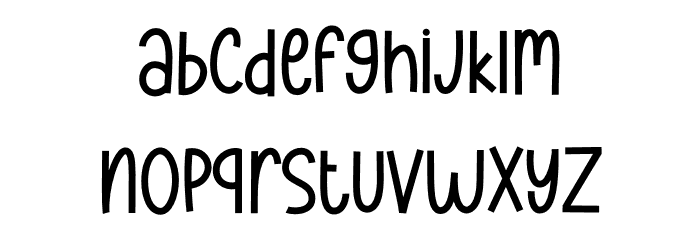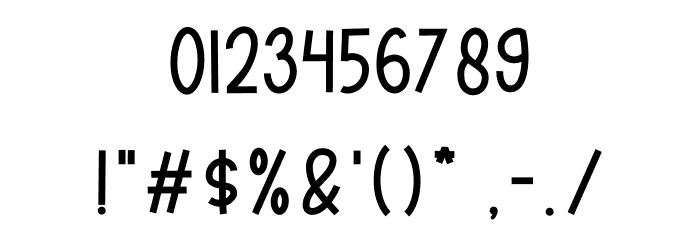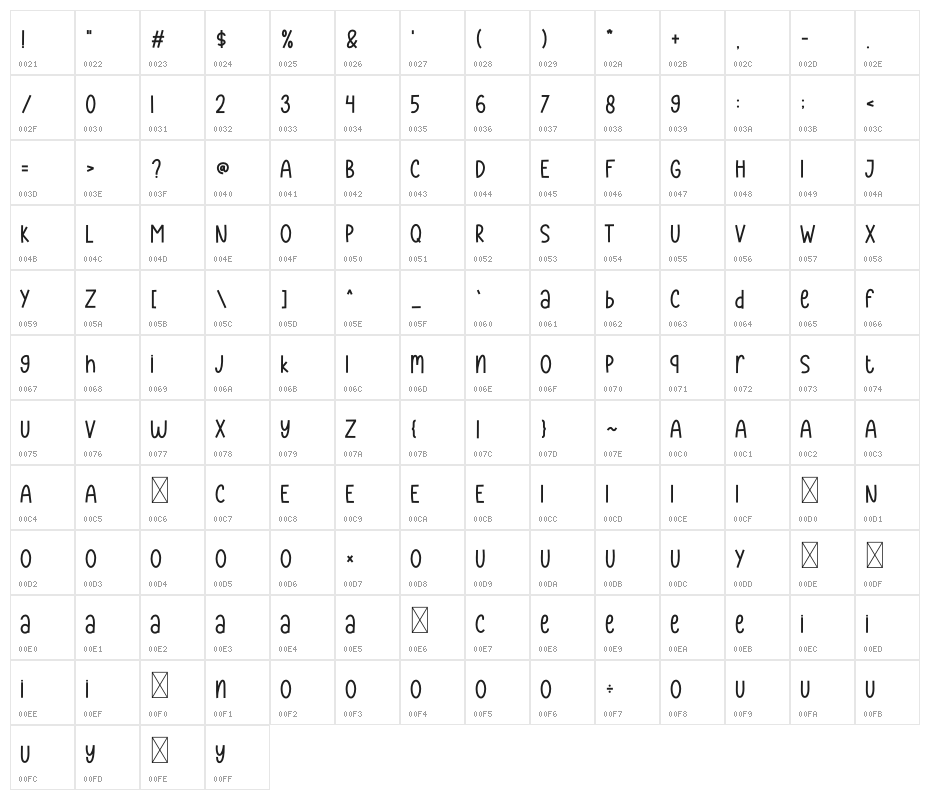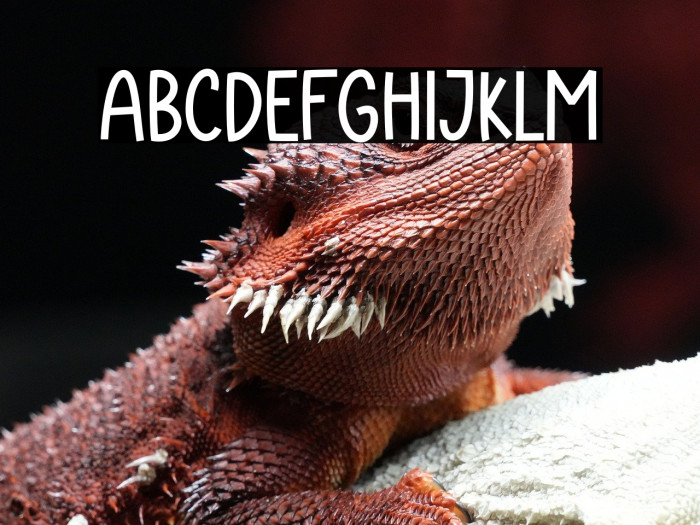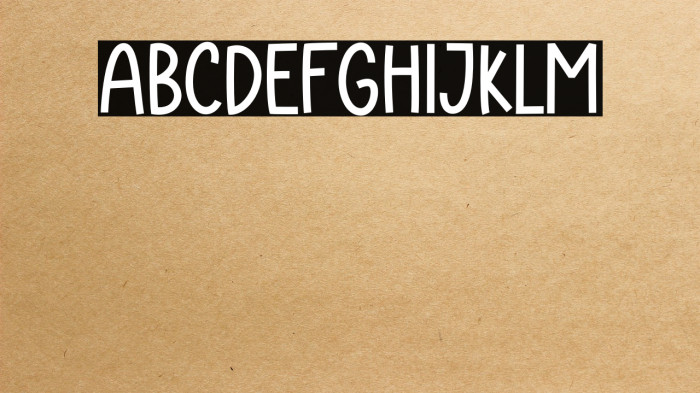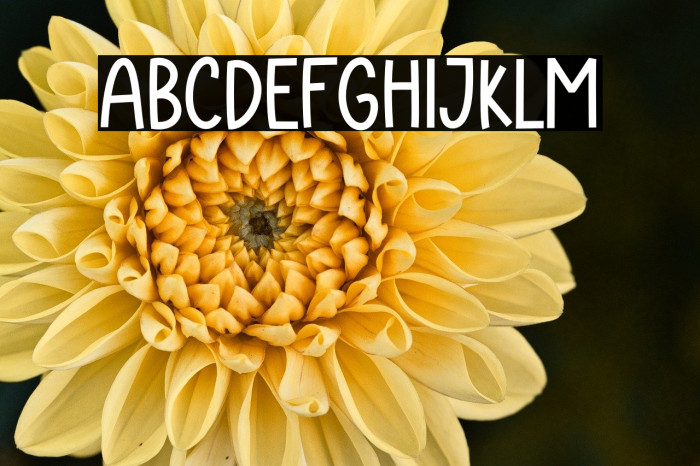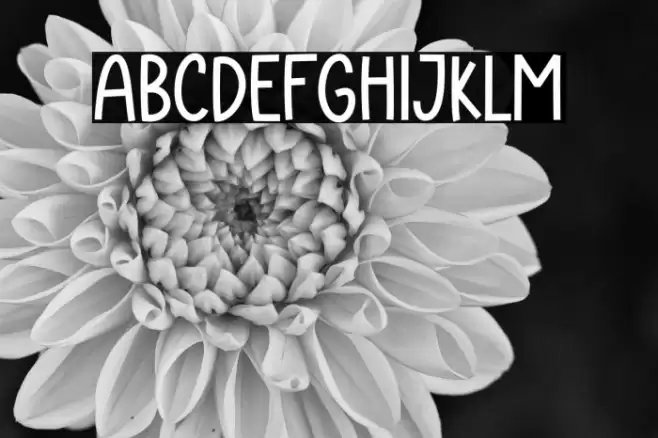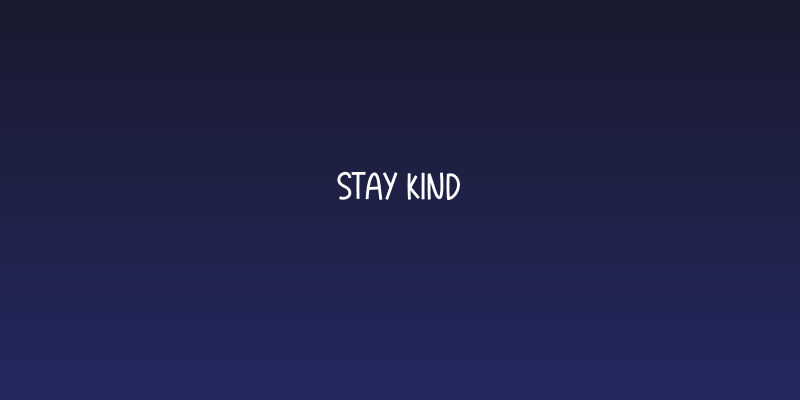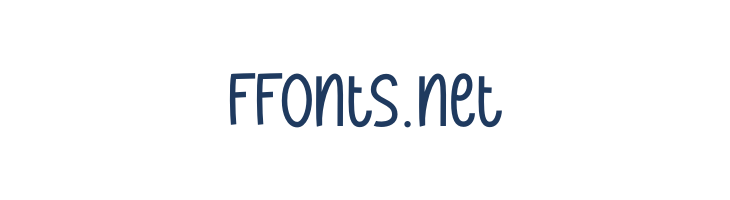
Stay Kind Font
This playful and friendly font features rounded edges and a slightly whimsical style, making it approachable and warm. The characters are evenly spaced with a consistent stroke width, giving it a clean and modern appearance. The uppercase letters are bold and prominent, while the lowercase letters maintain a consistent height, adding to the font's readability. The numerals are clear and distinct, matching the overall style of the alphabet. Special characters are well-integrated, maintaining the font's cohesive look. This font is versatile, suitable for both digital and print media, and can add a touch of personality to any project.
A playful, rounded font with a modern and friendly style.
- Font: Stay Kind
- Proposed Projects: Ideal for children's books, playful branding, greeting cards, and social media graphics.
- Use Case: Headlines, Logos, Social Media